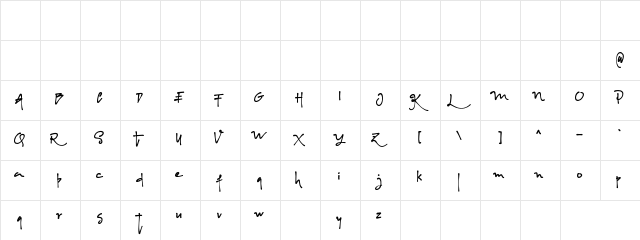
Albanian Regular
Design Context for Albanian Typeface
Albanian is a composed and adaptable typeface that performs quietly and consistently across a wide range of design contexts.